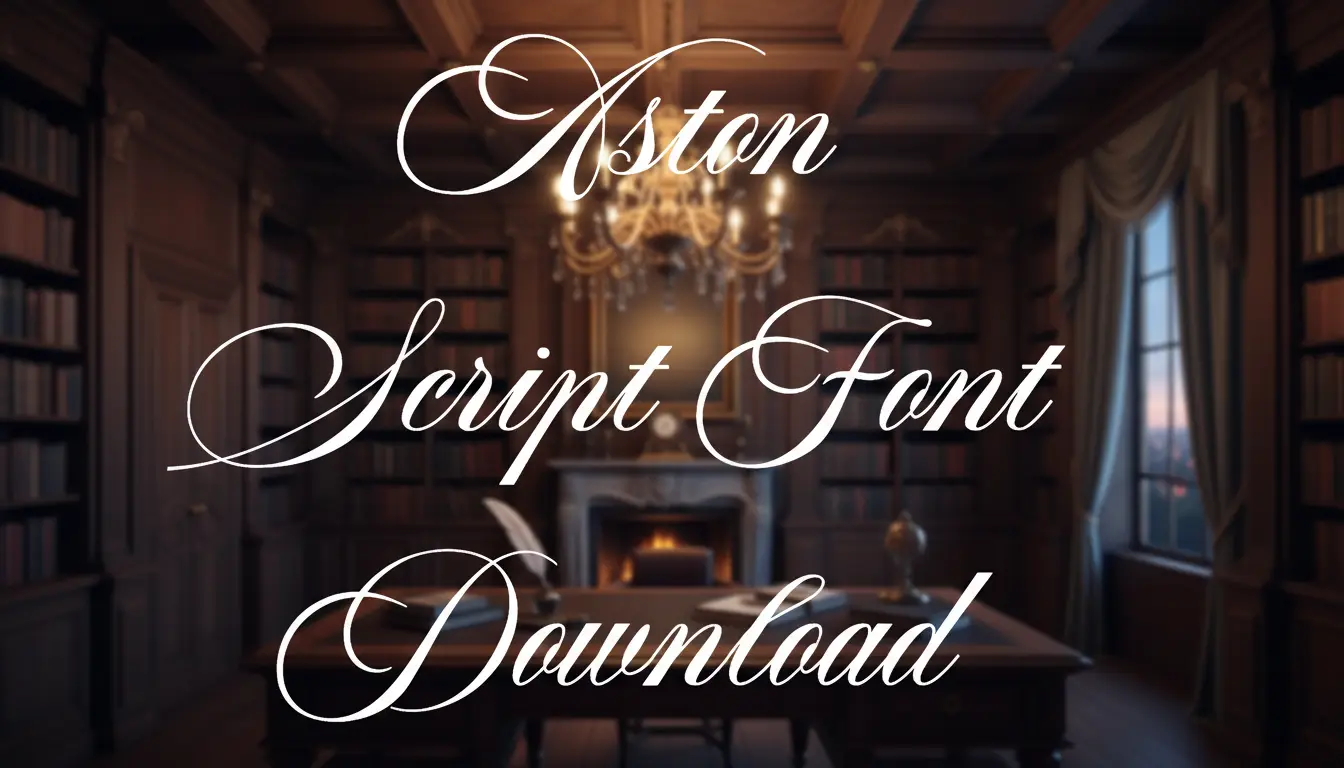
Aston Script
Aston Script is a calligraphy font designed by TRF (2018). It has that hand-lettered, flowing feel people look for when regular type seems too stiff. It's a free download, and you can try it with your own text in the preview above first.
What You Can Type With Aston Script
You get every letter from A to Z in both cases and all the numbers from 0 to 9, which means Aston Script can handle full sentences, dates and prices. Everyday marks like &, !, ? and @ are there too. Thanks to its accented letters, it also works for Spanish, French, German, Portuguese and Italian, not just English.
Where Aston Script Works Best
Think of Aston Script for wedding invitations, certificates and elegant quotes. Its lowercase letters are small compared to the capitals, so set it a size or two bigger than usual. Script fonts read best in short bursts, so keep it to names, titles and one-line quotes. Skip all caps: script capitals are drawn to start a word, not to fill one.
Who designed Aston Script font?
Aston Script was designed by TRF. The copyright line inside the font is dated 2018.
Does Aston Script support accented letters?
Yes. Aston Script includes the accented letters needed for Spanish, French, German, Portuguese and Italian, so it works for more than just English.